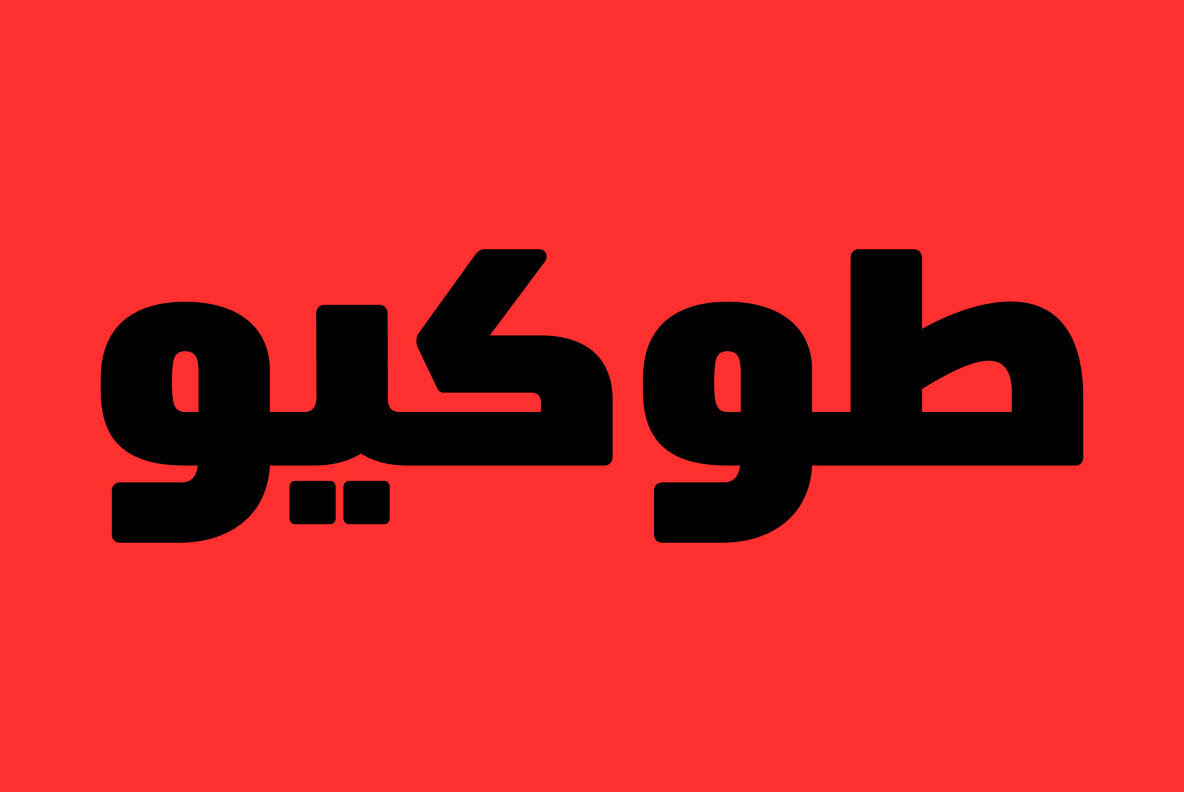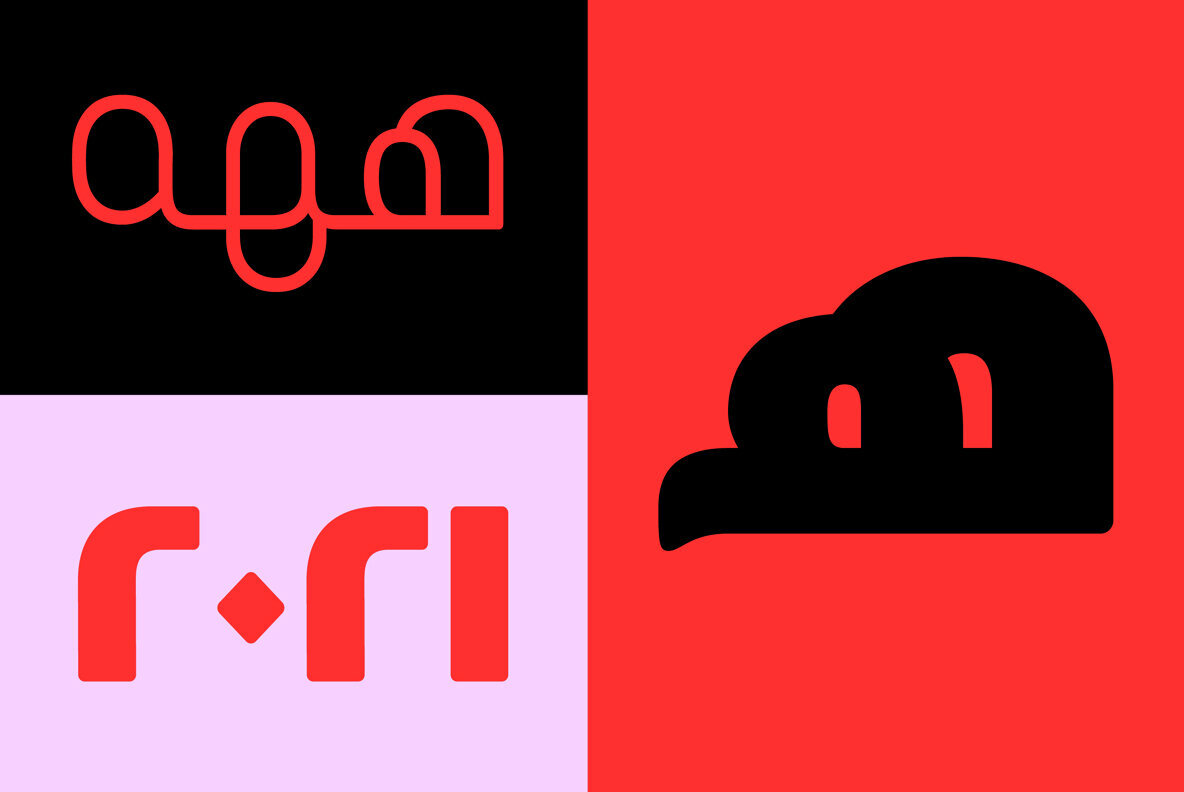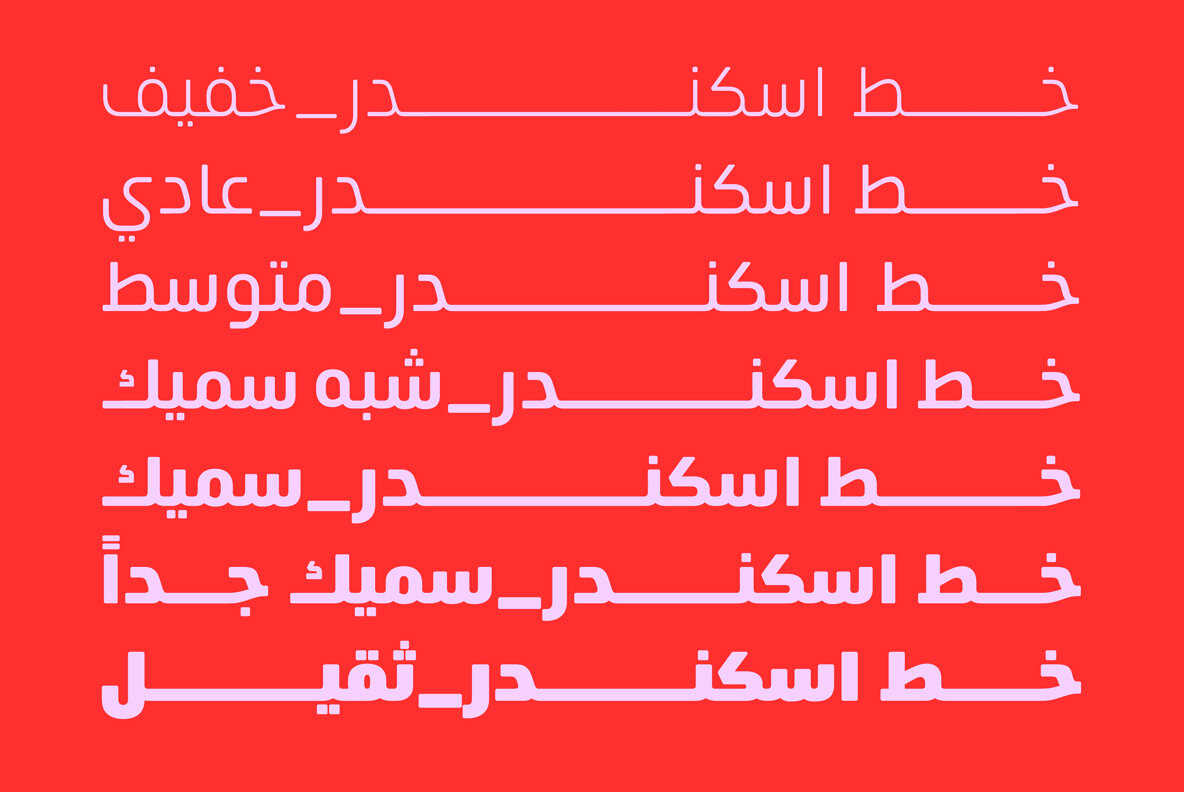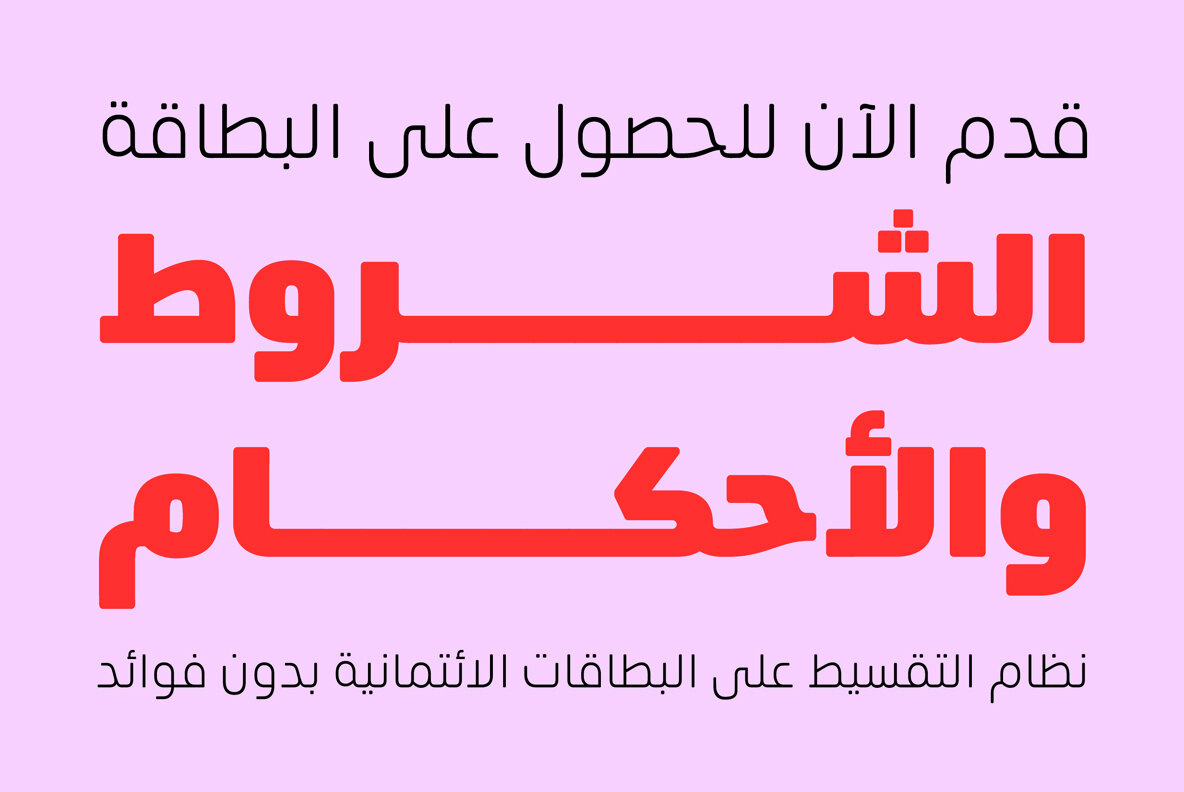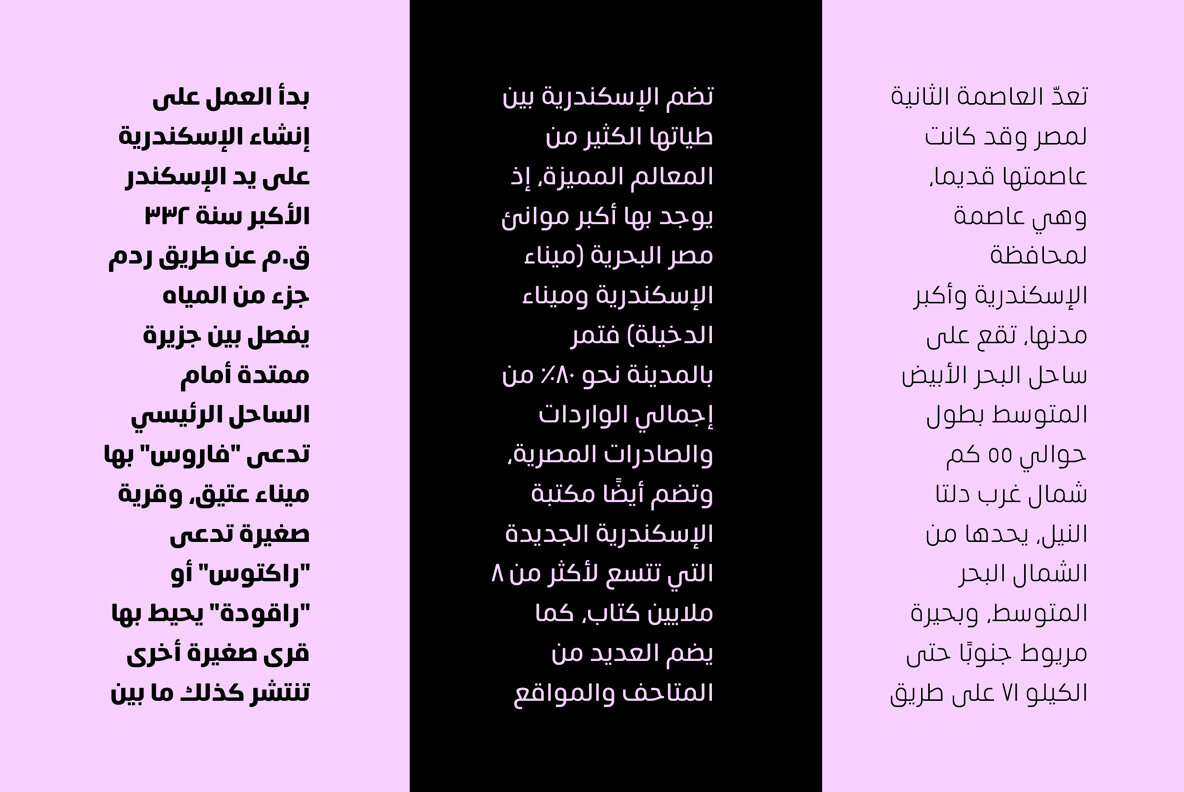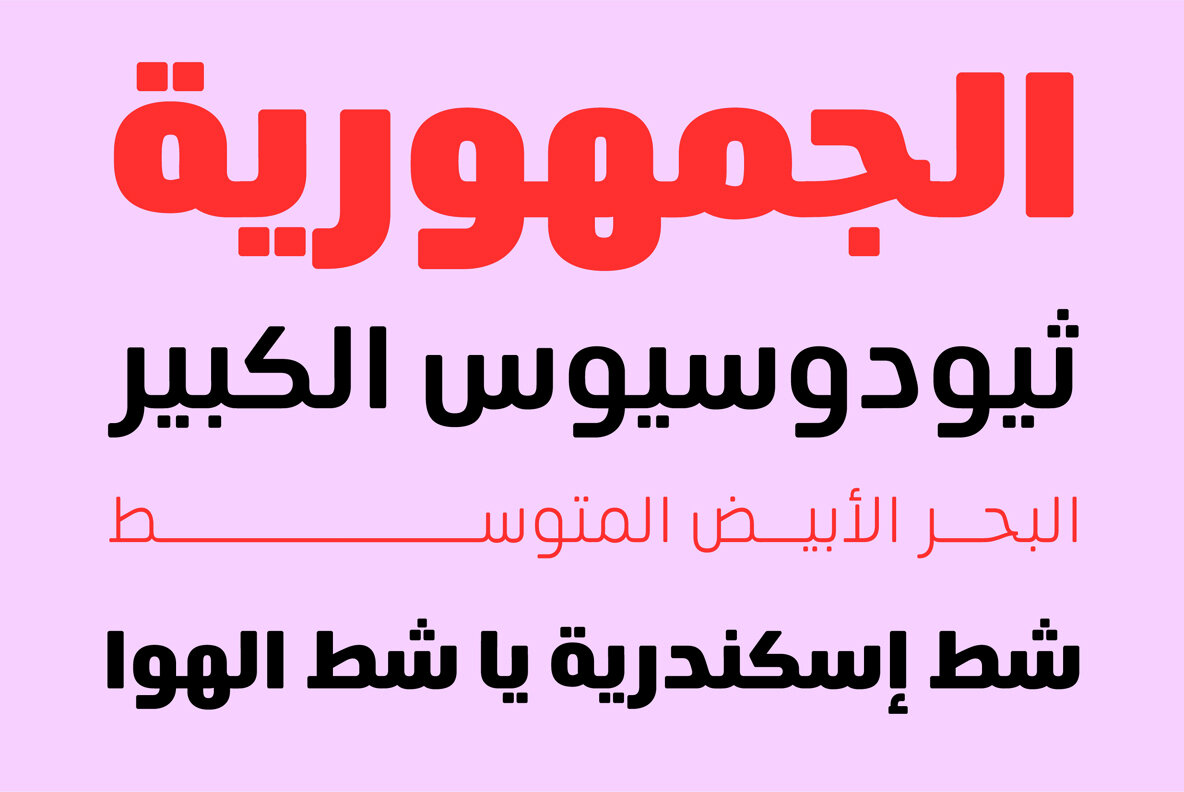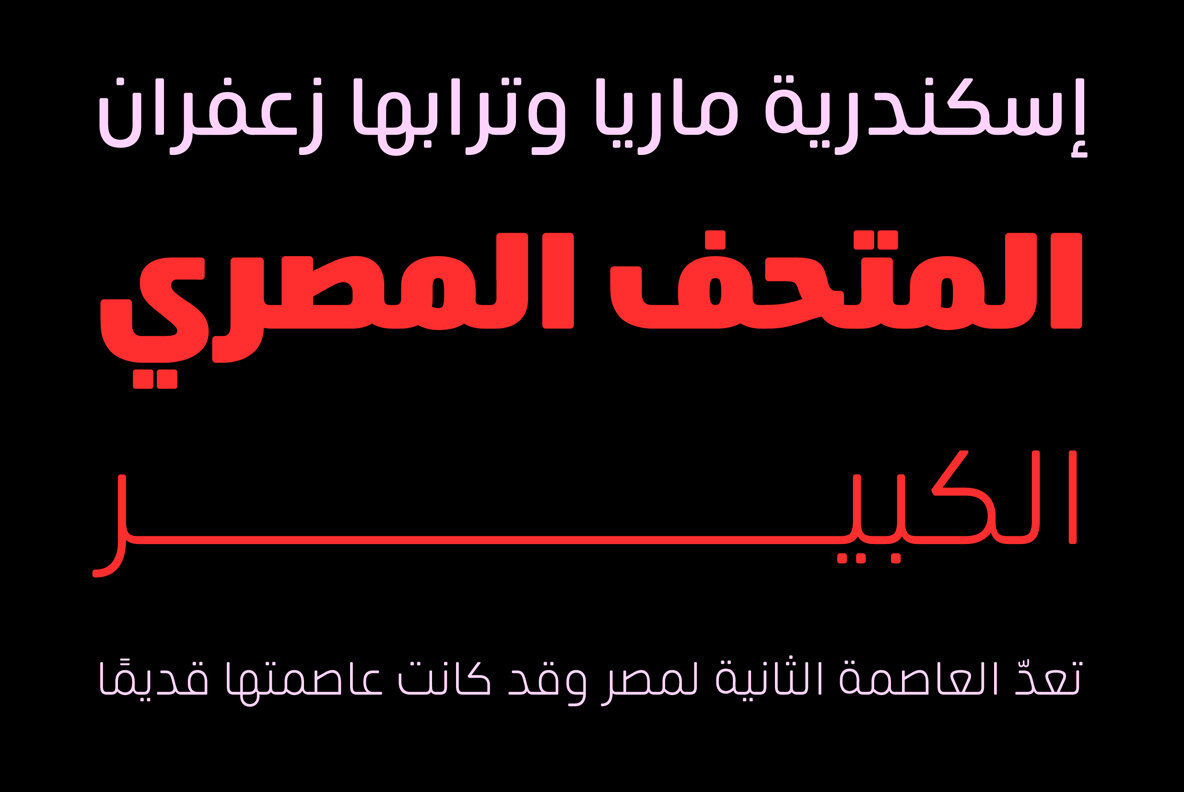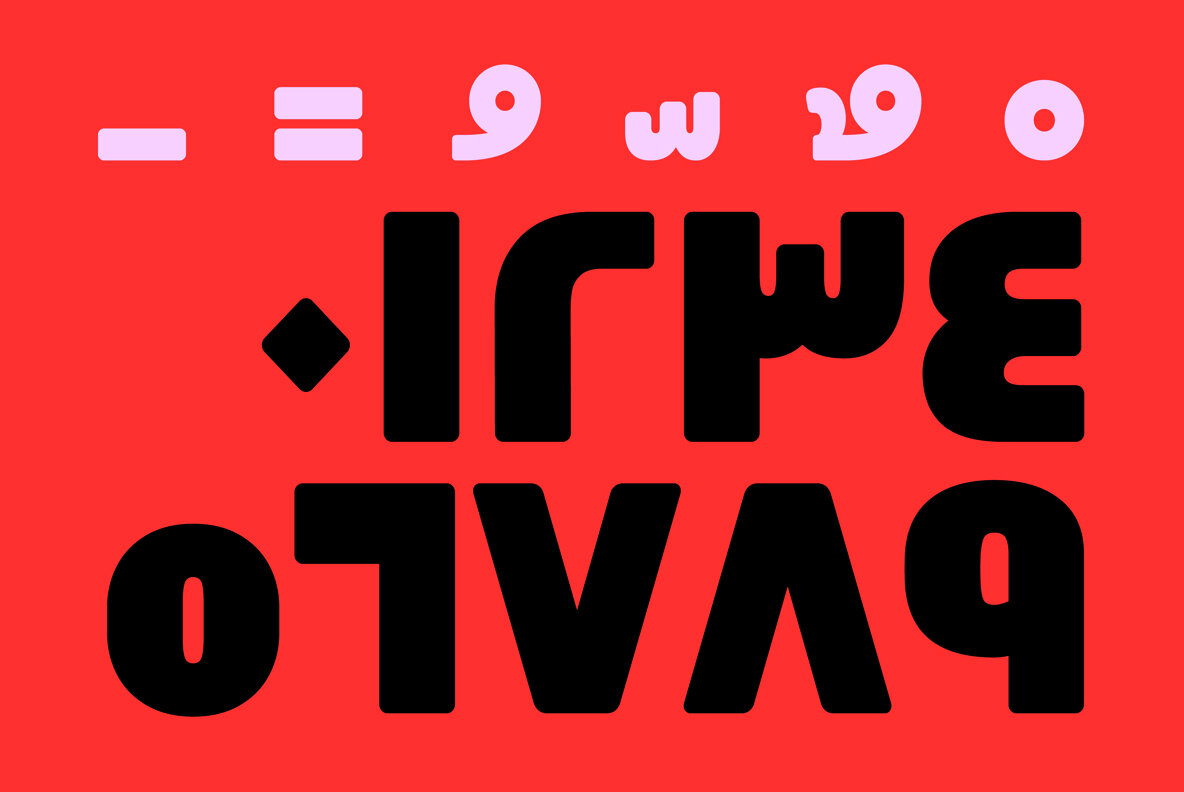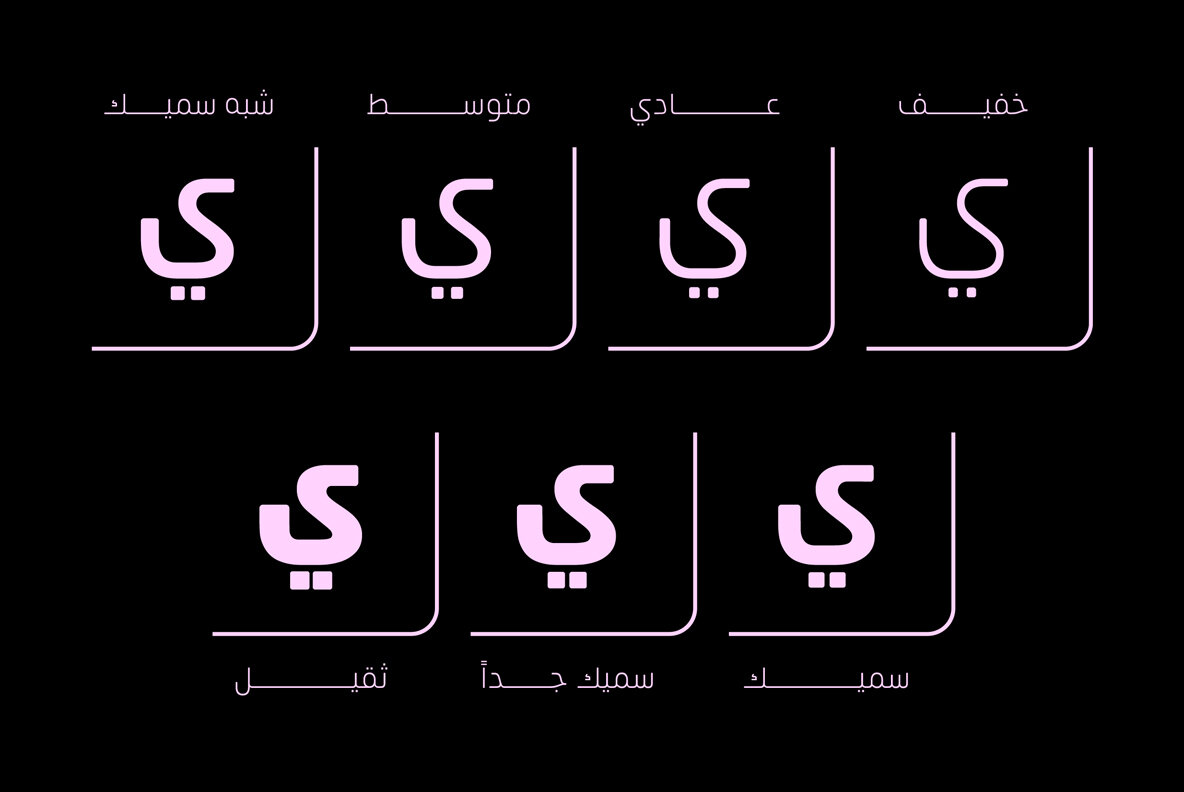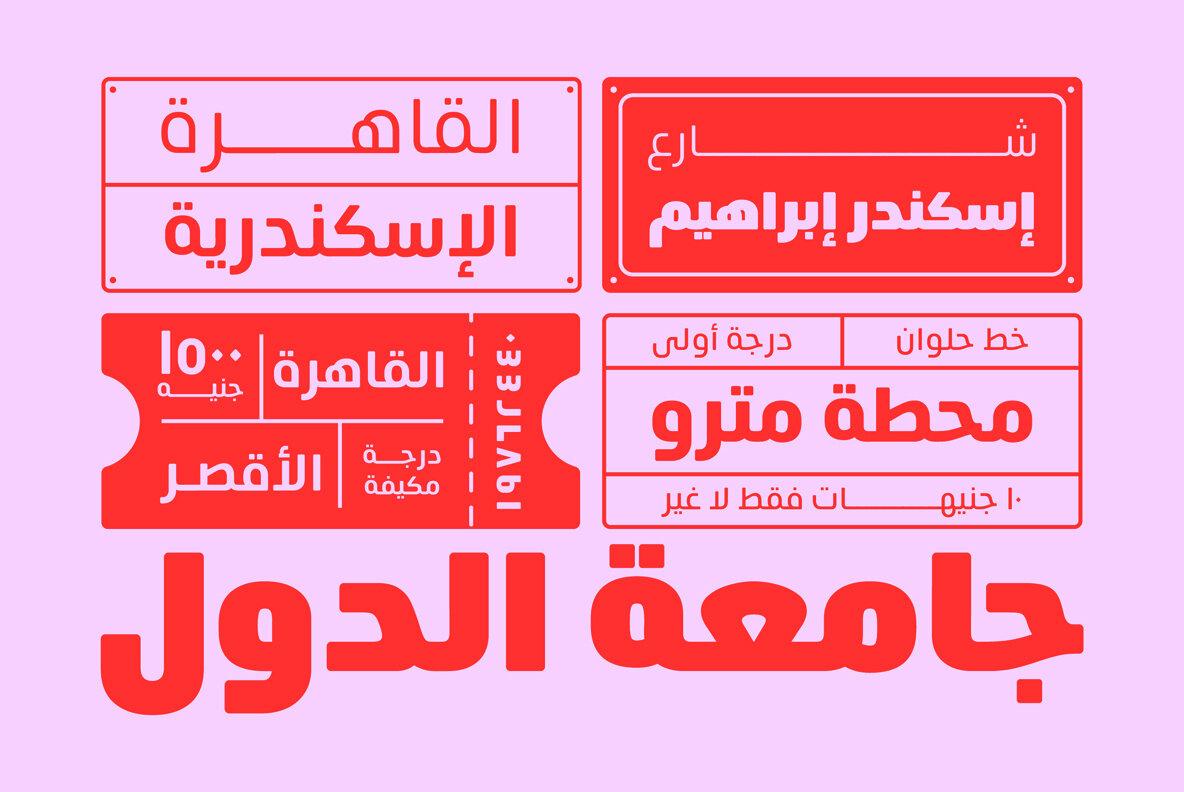
Eskander 1
Eskander the first version designed at 2018, and re-designed at 2021. Eskander is Arabic typeface with rounded edges and friendly. For web, digital applications and prints, supported languages (Arabic, Persian and Urdu). Eskander is a trademark of Protype Fonudry Ltd, Design by Ibrahim Hamdi.